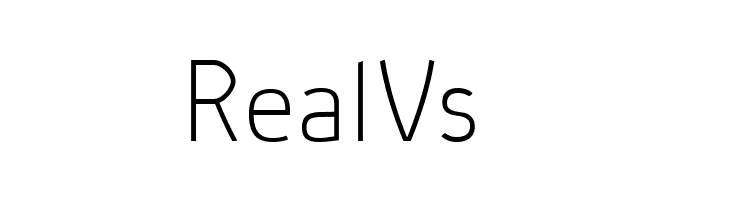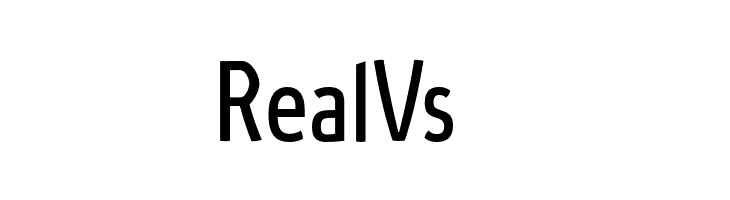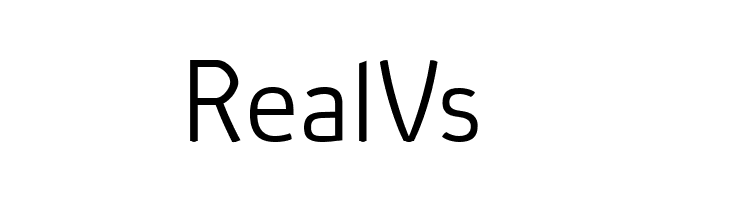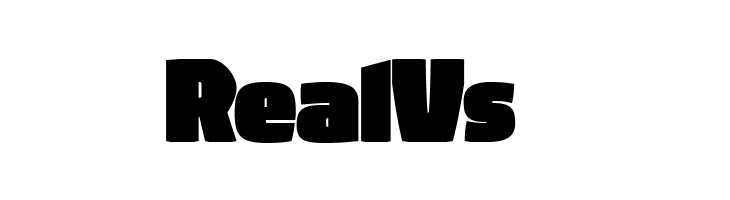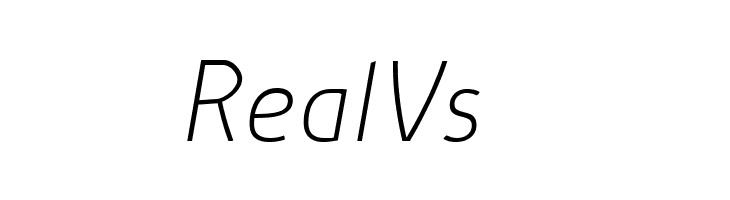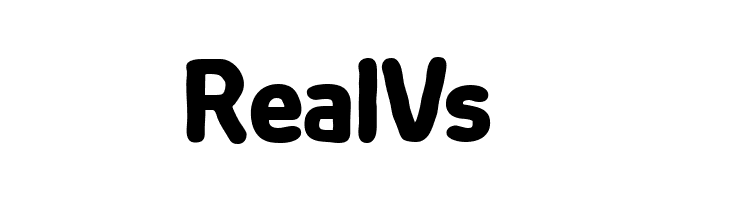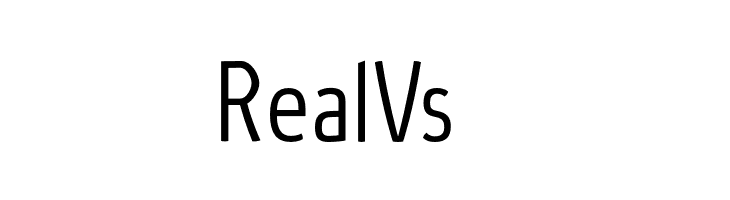
• Absolut Reduced Fat Head
A bold, block-like font with rounded edges for a strong yet approachable look.
• Absolut Reduced Italic
A modern, italic sans-serif font with clean lines and a dynamic slant.
• Absolut Reduced Light
A clean, modern sans-serif font with geometric structure and light weight.
• Absolut Reduced Light Italic
A sleek, modern, light italic font with a streamlined appearance.
• Absolut Reduced Medium
A modern, geometric sans-serif font with uniform stroke widths and balanced proportions.
• Absolut Reduced Medium Italic
A modern, italic typeface with clean lines and a dynamic slant.
• Absolut Reduced Thin
A modern, thin sans-serif font with clean lines and a minimalist aesthetic.
• Absolut Reduced Thin Italic
A sleek, thin italic font with a modern and elegant design.
• Absolut Sketch Reduced Bold
A bold, playful font with rounded edges and a hand-drawn aesthetic.
• Absolut Sketch Reduced Book
A playful, hand-drawn font with a sketch-like appearance and irregular strokes.
• Absolut Sketch Reduced Light
A playful, hand-drawn font with a sketch-like, artistic style.
• Absolut Sketch Reduced Medium
A playful, hand-drawn font with rounded, consistent strokes and a sketch-like quality.
• Absolut Sketch Reduced Thin
A thin, hand-drawn font with a sketch-like, artistic appearance.
• Absolut UltraCondensed Reduced Bold
Ultra-condensed, bold font with a modern and impactful style.
• Absolut UltraCondensed Reduced Book
A highly condensed sans-serif font with uniform strokes and minimal contrast.
• Absolut UltraCondensed Reduced Lt
A whimsical and flowing handwritten font with elegant, elongated letterforms.
• Absolute Neon Script
A vibrant, cursive script font inspired by neon signage.